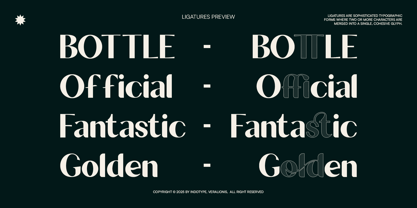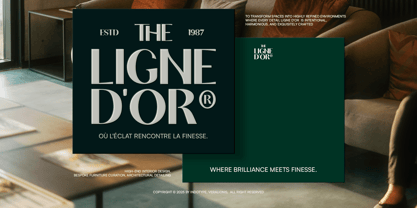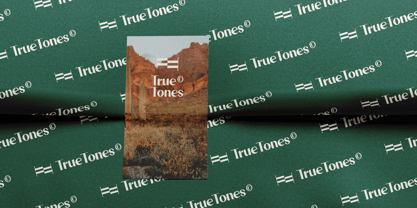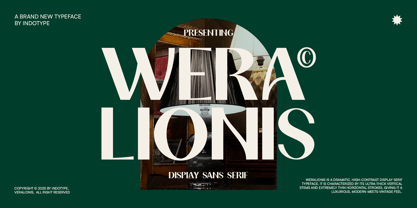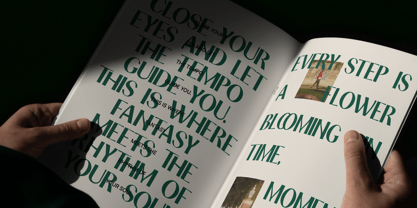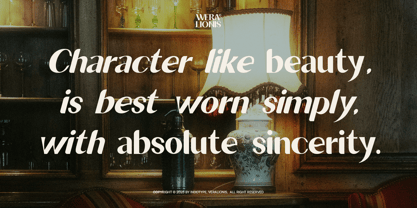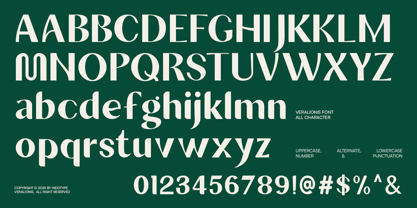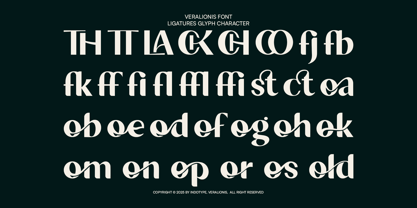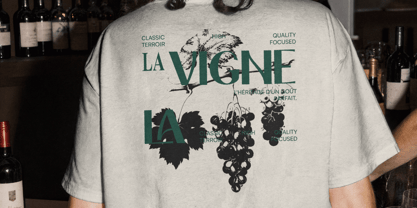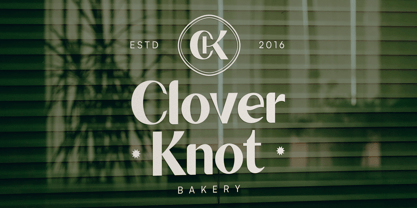
IT Weralionis
by Indotype
The IT Weralionis Font Family was designed by Frederik Aristaputra and published by Indotype. IT Weralionis contains 2 styles and family package options. More about this family
Weralionis is a breathtaking display serif that commands attention through extreme contrast and refined drama. Characterized by its voluptuous, thick vertical stems juxtaposed against razor-thin horizontal strokes, this typeface creates a rhythm of luxury and tension. It masterfully bridges the gap between vintage elegance and modern sophistication, evoking the grandeur of Didone typography with a contemporary, sharper edge. Designed for maximum visual impact, Weralionis is the epitome of high-end typography. It thrives in settings where luxury and style are paramount—think fashion magazine headlines, haute couture branding, elegant perfume packaging, and sophisticated editorial layouts. This is not a font for subtlety; it is a deliberate statement of opulence and design confidence. • Ideal for: Fashion Editorials, Luxury Branding, Perfume & Cosmetic Packaging, Magazine Headlines, High-End Logotypes, Wedding Invitations. • Classification: Serif, Display, High-Contrast, Didone, Modern. • Attributes: Dramatic, Luxurious, Elegant, Bold, Refined, Sophisticated, Opulent.
Designers: Frederik Aristaputra
Foundry: Indotype